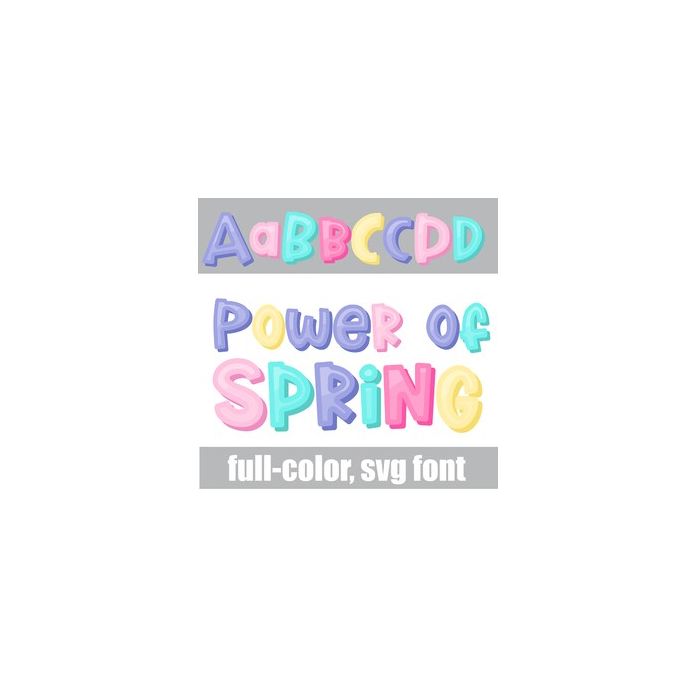
This full-color font features a pastel color palette in a shadowed, playful font. There is an alt case w/ additional colors you can access through your system or Silhouette's glyph map.